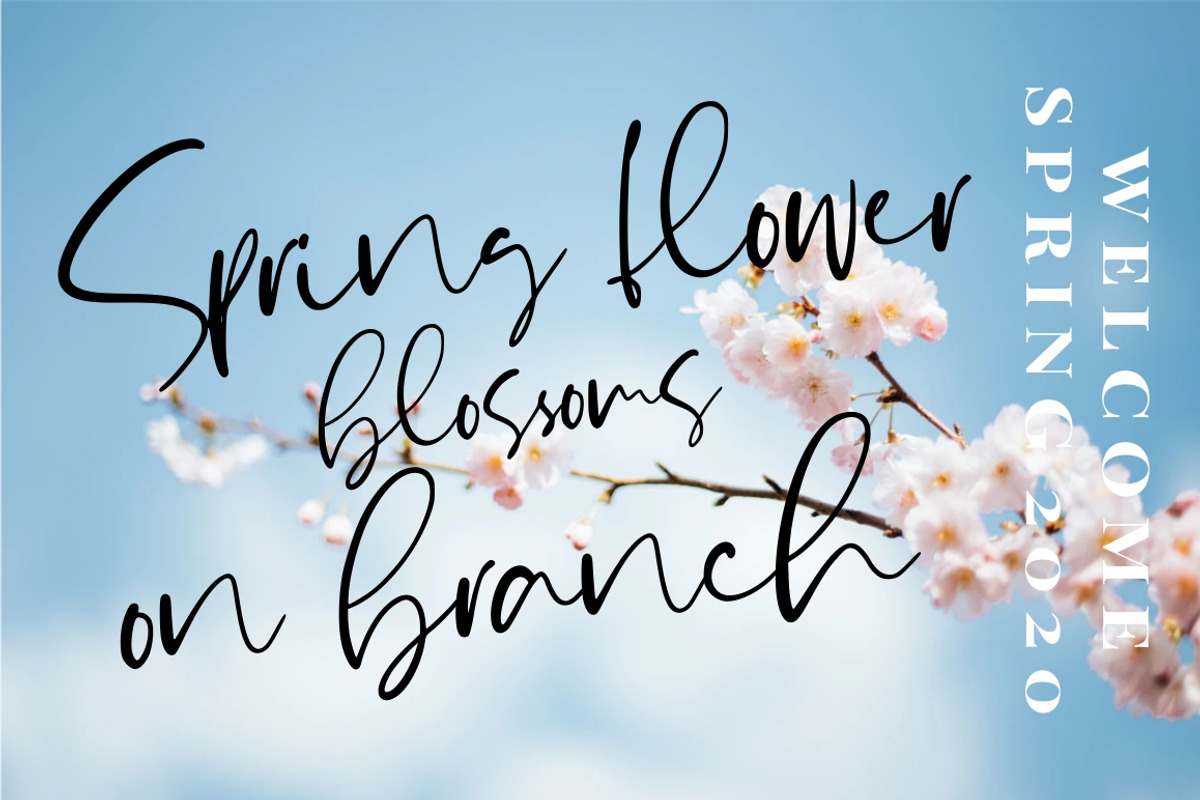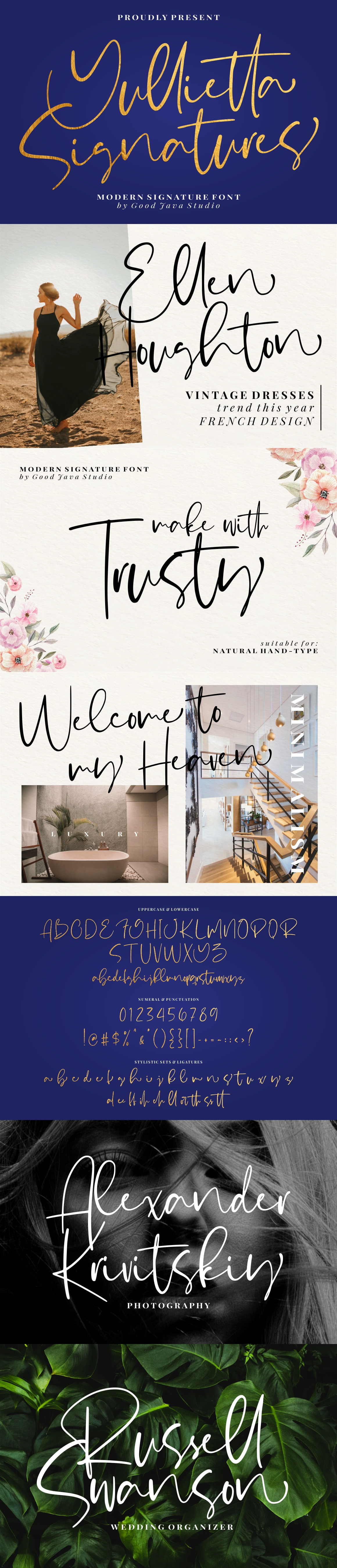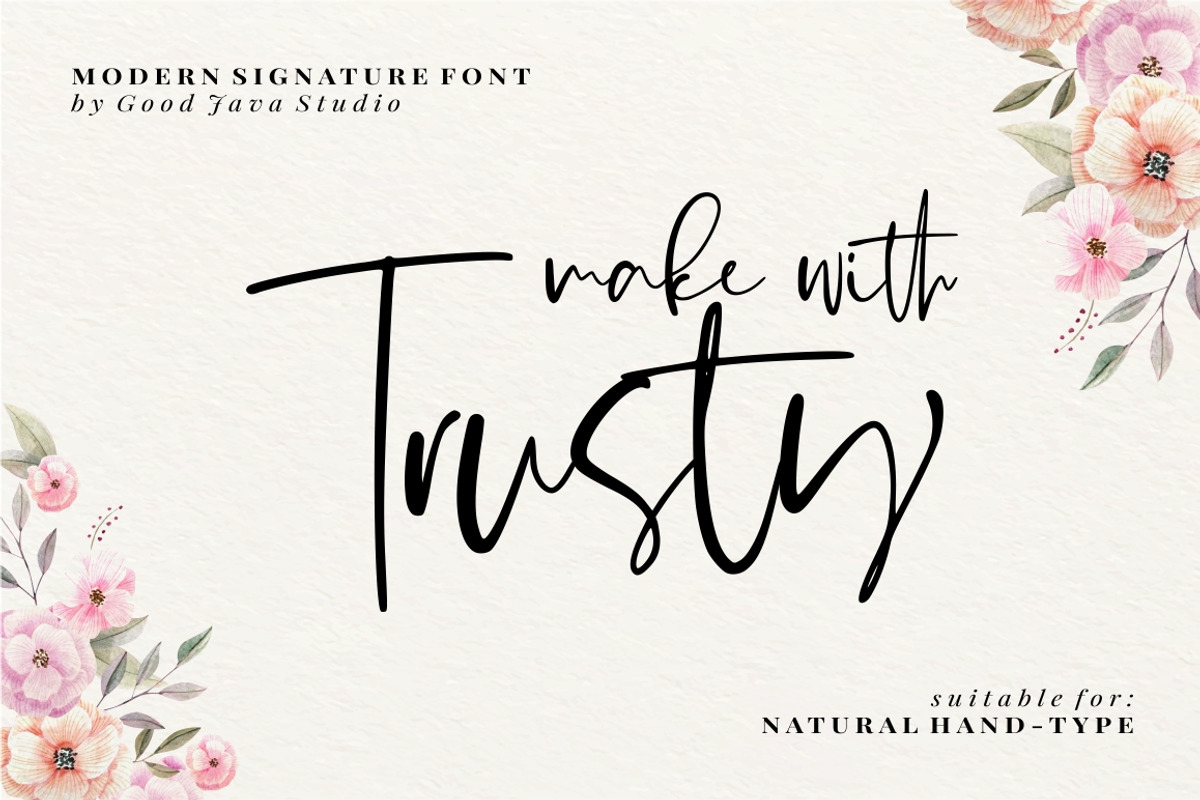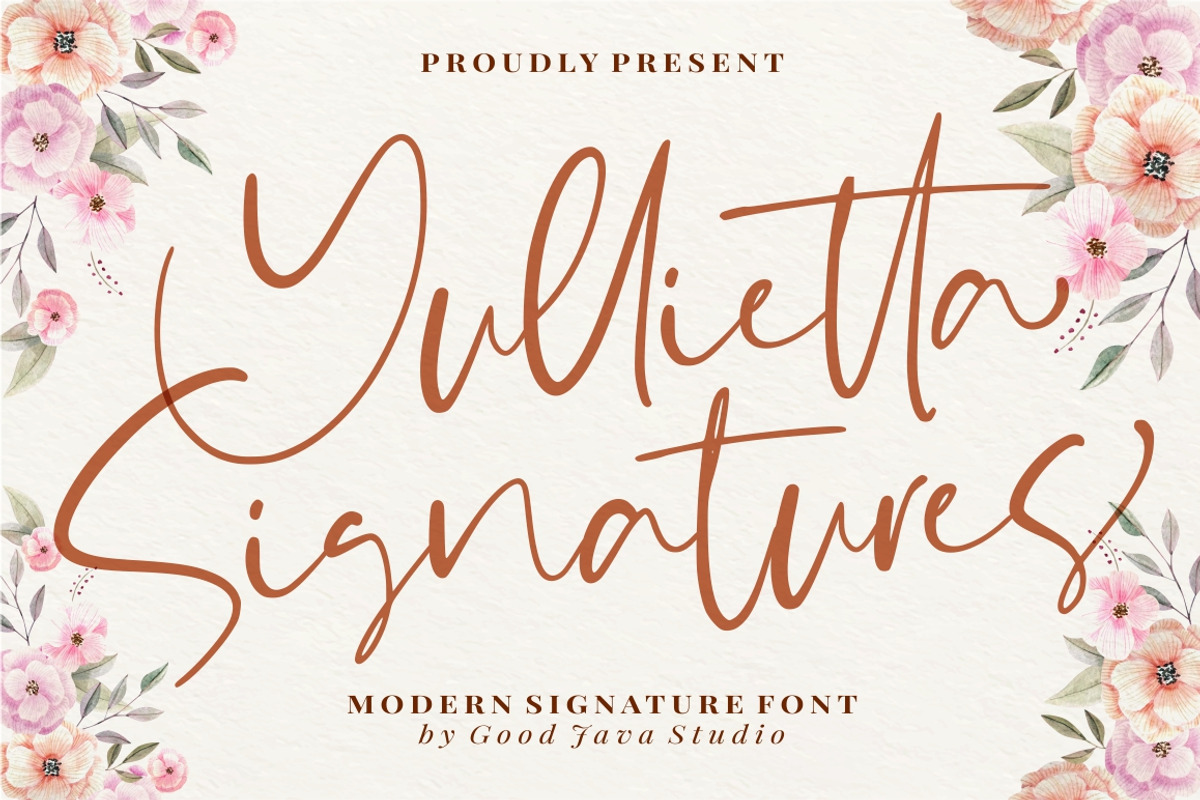
Yullietta - Modern Signature Font
Yullietta - Modern Chic Signature Font
Yullietta - Modern Signature Font is a modern signature font. Perfect for logo, invitation, stationery, wedding designs, social media posts, advertisements, product packaging, product designs, label, photography, watermark, special events or anything. This font include : Yullietta OTF-TTF-WOFF, Ligatures, and also Multilingual support.
What's Advantages Yullietta ?
- Very great for branding, logotype, handletteing, invitations, or fashion branding.